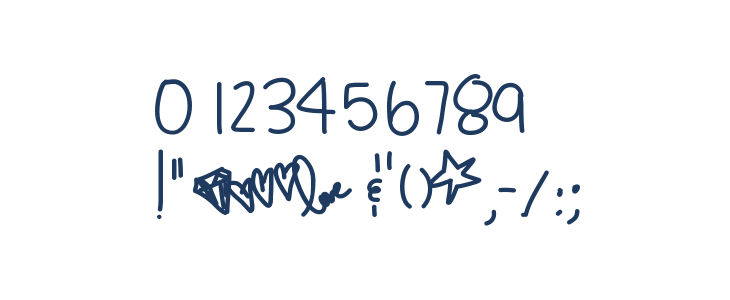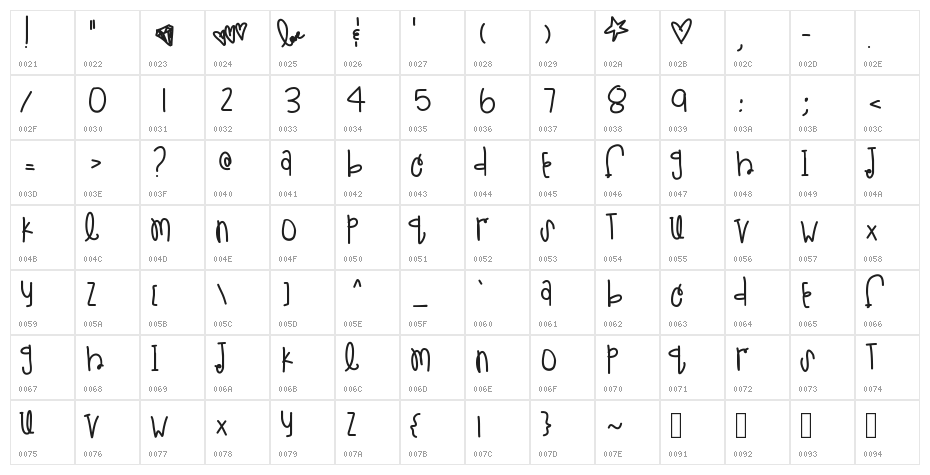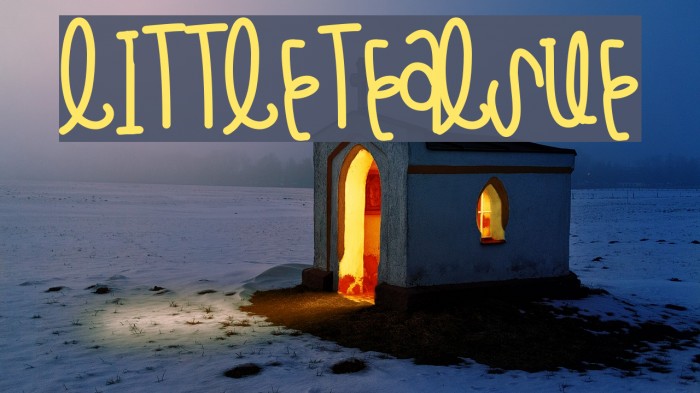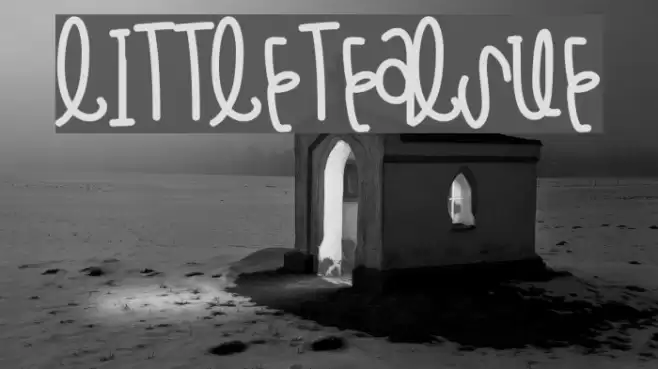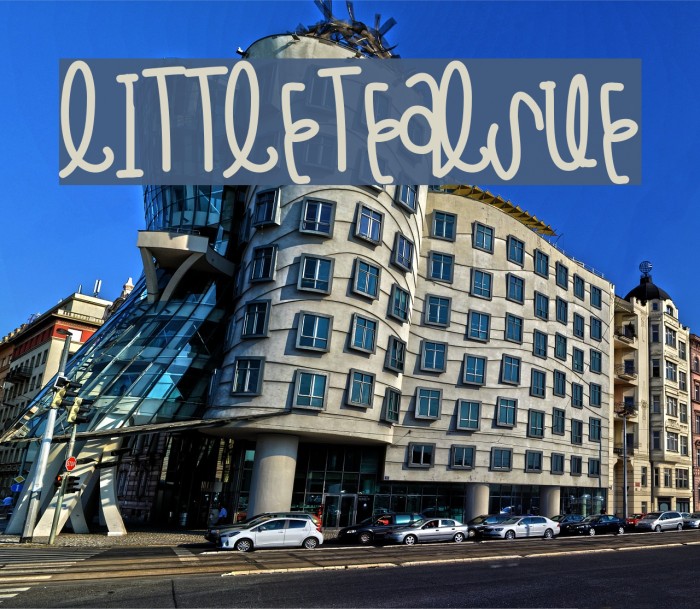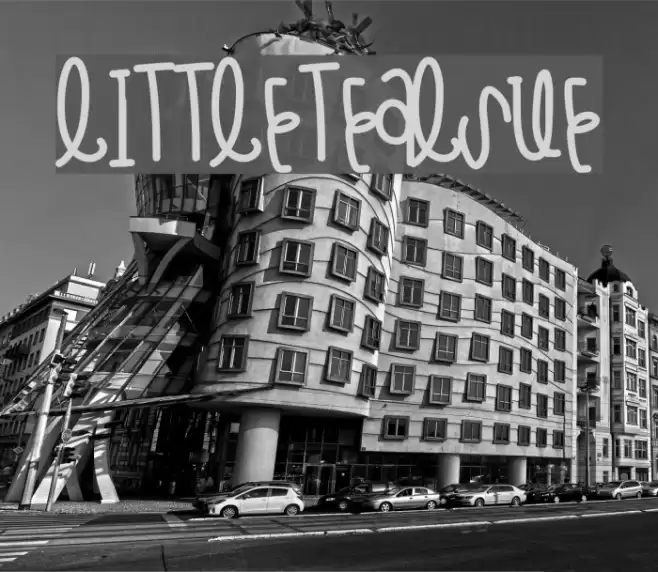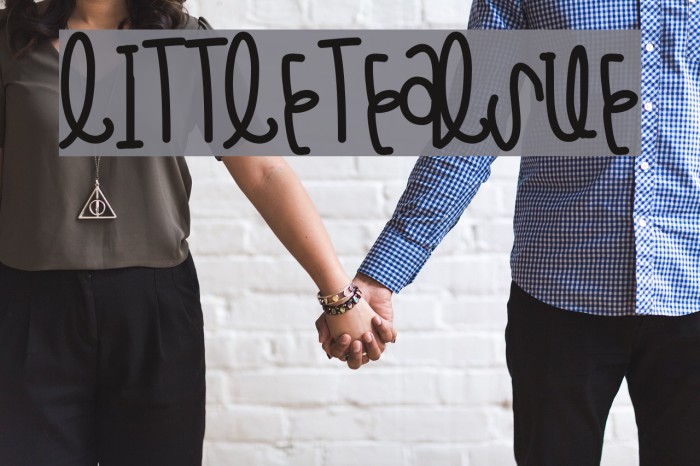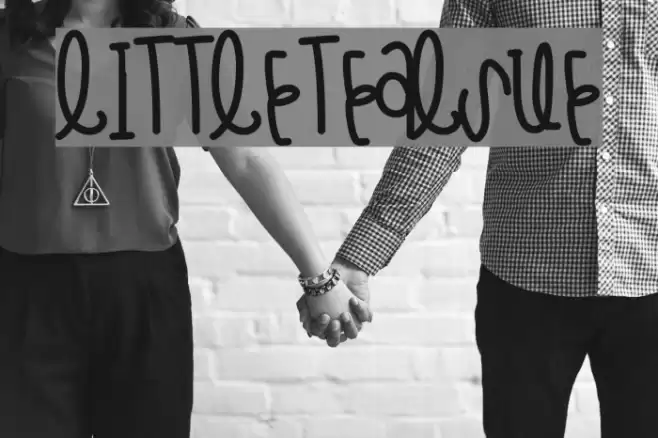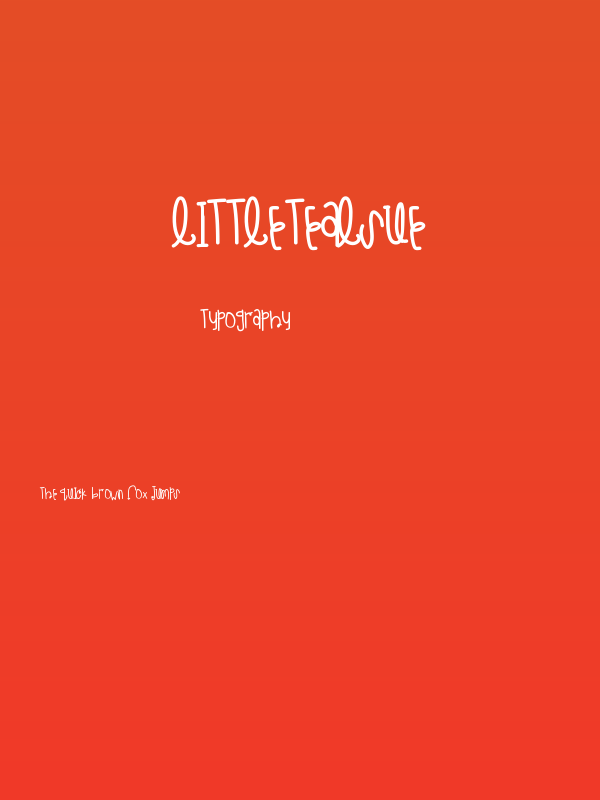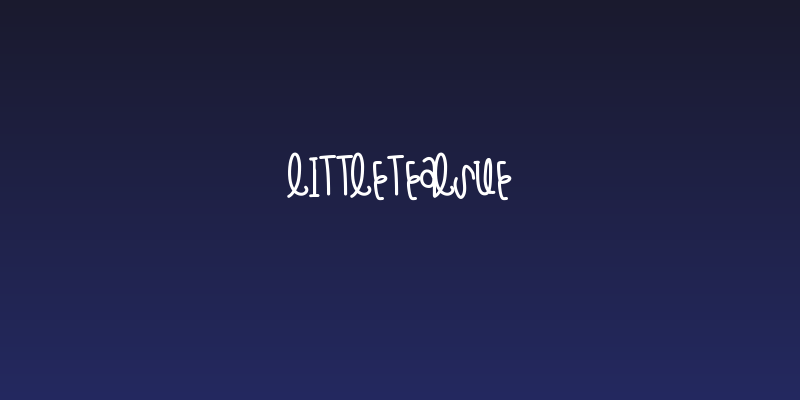
LittleTealSue Font
LittleTealSue Description
This playful and whimsical font features a handwritten style with a casual and informal appearance. The letters are characterized by their smooth, rounded edges and slightly irregular shapes, giving them a friendly and approachable feel. The uppercase and lowercase letters maintain a consistent style, with a slight tilt that adds to the dynamic and lively nature of the font. The numbers are clear and easy to read, matching the overall aesthetic. Special characters are creatively designed, adding a unique touch to the font. This font is perfect for projects that require a personal, fun, and engaging look.